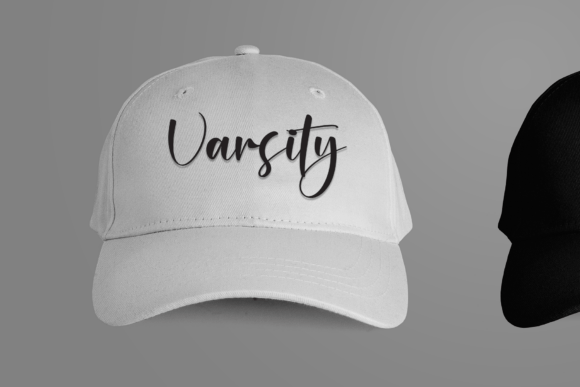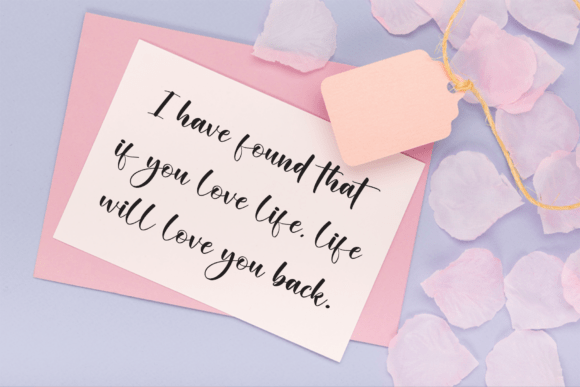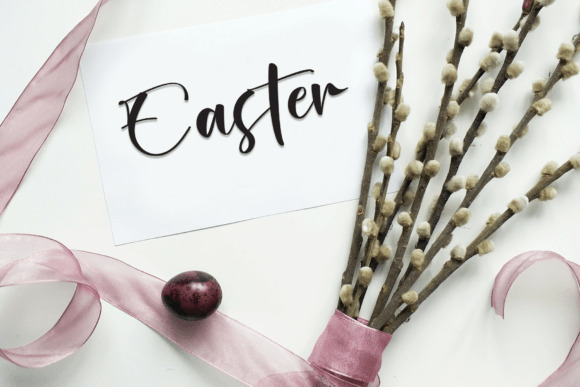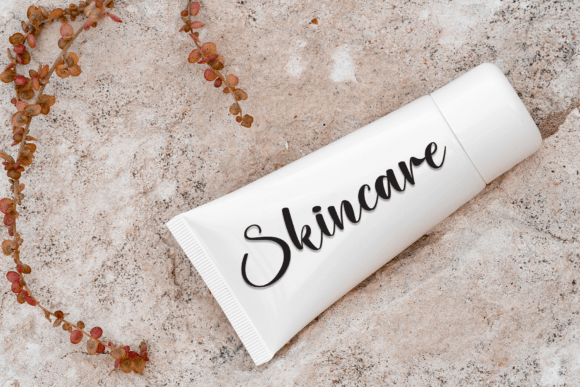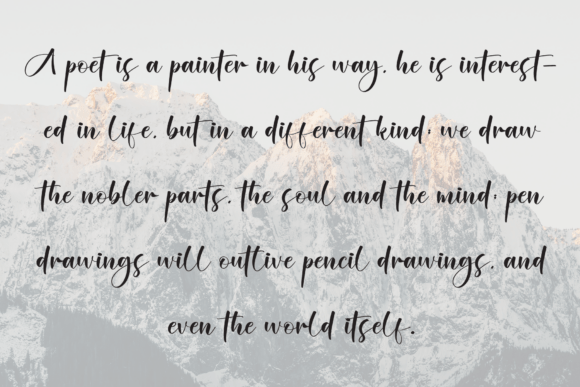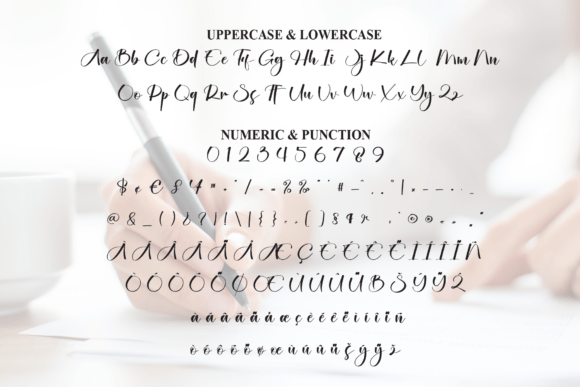
The Art of Making a Lasting Impression
Have you ever found yourself staring at a beautifully crafted logo or typography, feeling a sudden surge of inspiration and a deep desire to create something equally stunning? For designers, this moment is all too familiar, and it’s often the spark that sets off a creative journey. As we strive to make a lasting impression on our audience, we’re constantly on the lookout for the perfect tools to help us achieve this goal.
Enter the Catalina Signature Font, a sophisticated and authoritative script font designed to leave a lasting mark. With its bold letterforms, high-contrast strokes, and rhythmic baseline, this font is an exceptional asset for luxury brand identities, professional photography watermarks, and elegant event stationery.
Catalina Signature Font Key Features
- Font Family: Catalina Signature Font is a unique, high-end font family with a variety of styles, including script, cursive, and serif.
- Character Count: This font family includes over 1,200 glyphs, ensuring you have an extensive range of characters to work with.
- Unique Characteristics: Features a luxurious, elegant feel with intricate flourishes and subtle texture, perfect for high-end branding and design projects.
Catalina Signature Font Review
I recently had the chance to work with the Catalina Signature Font, and I must say it’s a unique and eye-catching addition to any design project. ✨ Here are some of its strengths:
- Elegant script style that adds a touch of sophistication to any text
- Wide range of languages supported, making it a great choice for multilingual projects
- Available in various weights, from light to bold, for added versatility
However, like any font, Catalina Signature has its limitations:
- Some characters may be difficult to read at small font sizes ⚠️
- Limited availability in certain operating systems, which may cause compatibility issues
- The font’s unique style may not be suitable for all types of projects or audiences
Overall, I think the Catalina Signature Font is a great choice for designers looking to add a touch of elegance to their projects. While it may have some limitations, its unique style and wide range of languages supported make it a valuable addition to any design library.
The Catalina Signature Font is perfect for:
- Typography-heavy designs, such as posters and flyers
- Presentations and documents that require a touch of sophistication
Q: Does the Catalina Signature Font support multilingual typing?
Yes, the Catalina Signature Font supports a wide range of languages, including English, Spanish, French, German, Italian, and many others. The font also includes Unicode support, allowing designers to type in various languages using the font’s advanced OpenType features.